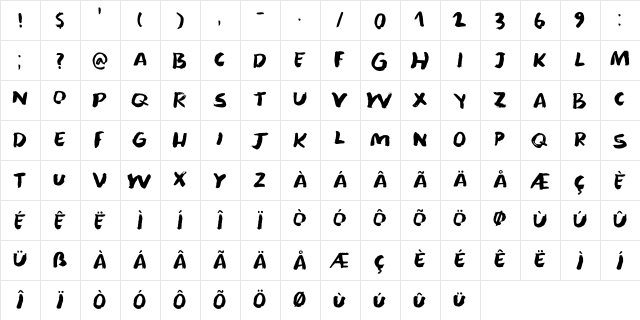
Forgotten Dream DEMO Regular
| Foundry | David Kerkhoff |
| Designer | David Kerkhoff |
Forgotten Dream DEMO is a composed and adaptable typeface that performs quietly and consistently across a wide range of design contexts.